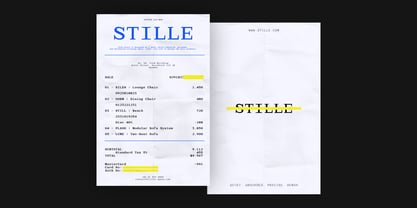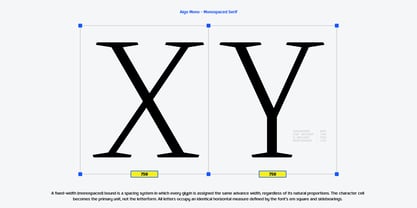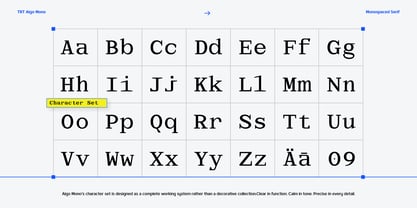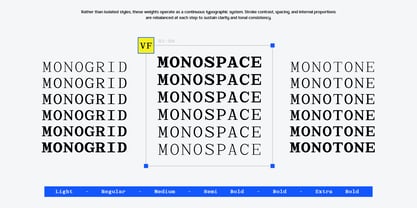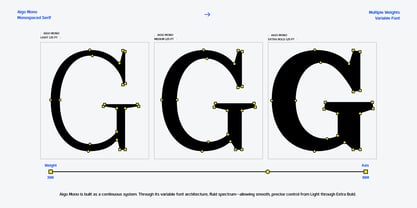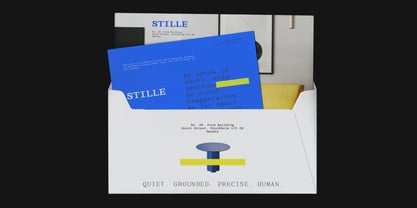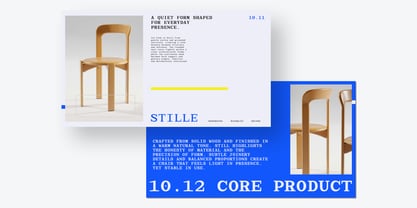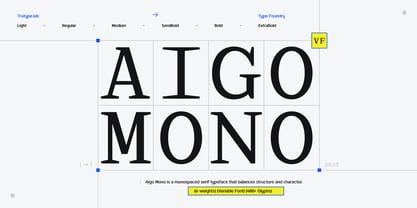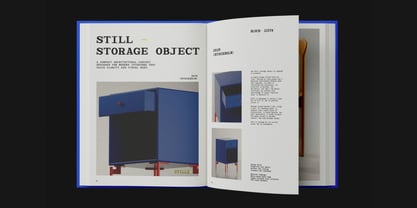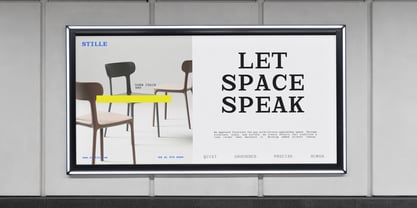
TRT Aigo Mono
by True Type Lab
The TRT Aigo Mono Font Family was designed by Yusilo Oktaprima Ardani and published by True Type Lab. TRT Aigo Mono contains 5 styles and family package options. More about this family
Aigo Mono is a monospace serif typeface built around structure, rhythm, and typographic discipline. With equal-width letterforms, it establishes a consistent grid that brings clarity and order to complex layouts, making it especially effective in systems-driven design. The serif details introduce a subtle sense of character and warmth, softening the rigid nature of monospace typography without compromising legibility. Carefully balanced proportions and multiple weights allow Aigo Mono to perform across editorial layouts, interfaces, and experimental compositions.
TRT Aigo Mono